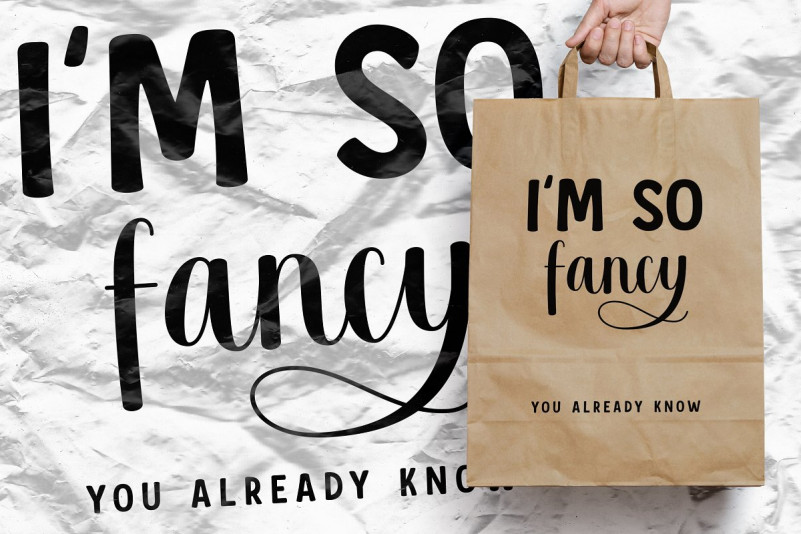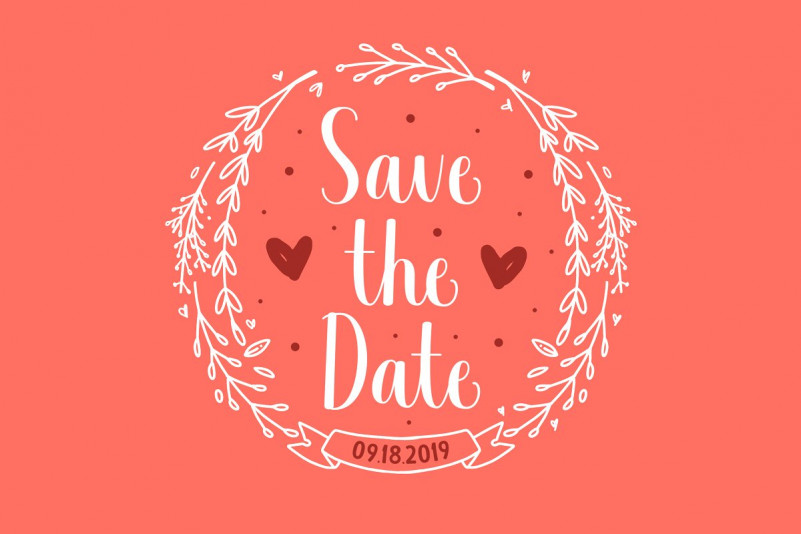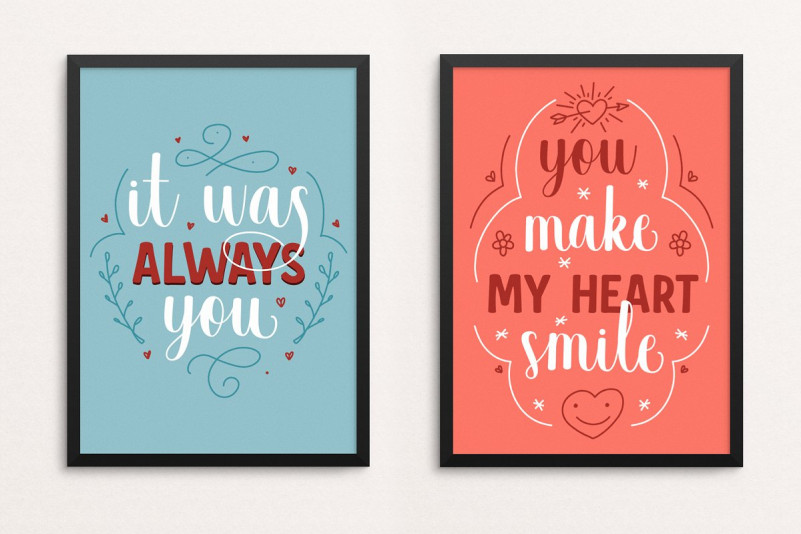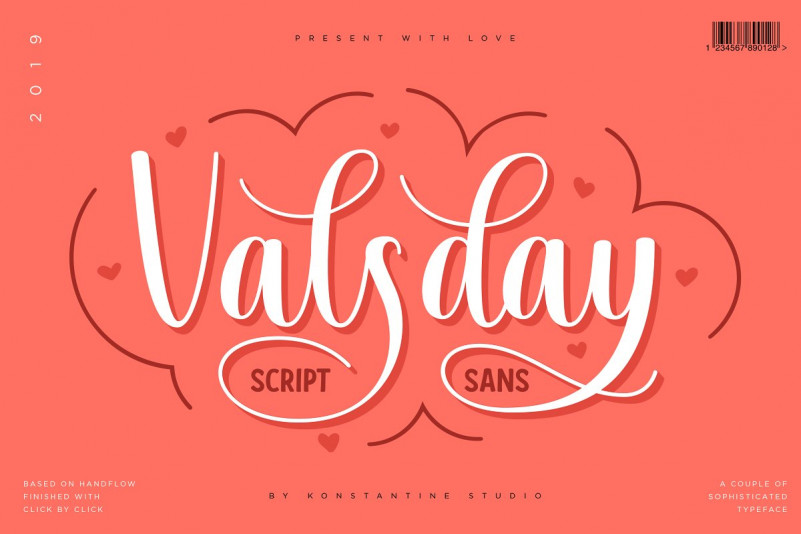
Valsday Script and Sans Font
Valsday Script and Sans Demo Font
This is a handwritten calligraphy font with delicate touches and fancy curves. And includes with serif version. Introducing Valsday Script and Sans Font. A clean and swashy script typeface with a beautiful flow in every move. Inspired by the modern calligraphic and lettering style to express the OG love that carefully crafted and done by human hand. Packed up with the bold sans serif version to make it as a good couple. Cause you know the best couple are inseparable.